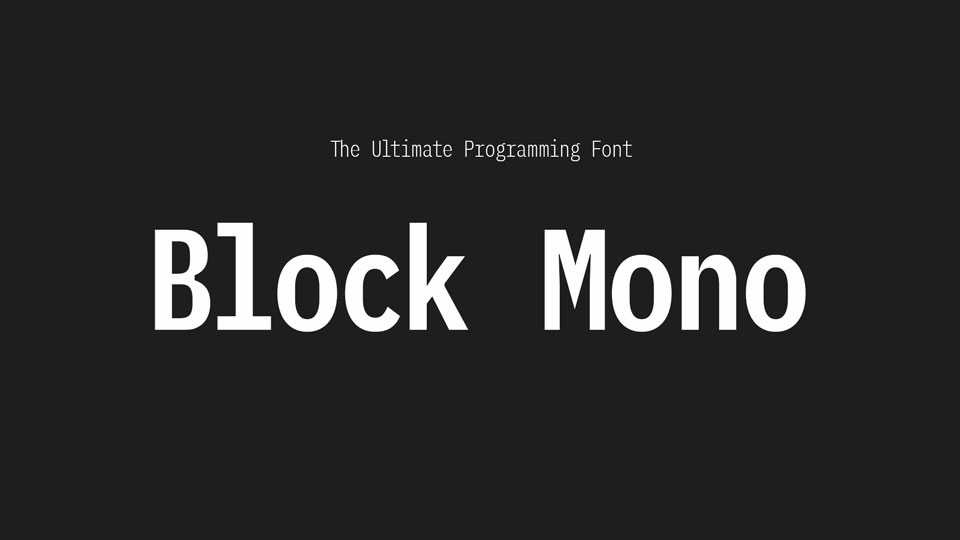
Download Block Mono font, a meticulously crafted programming typeface designed to make every keystroke a masterpiece. Tall, elegant, and exceptionally readable, it’s the perfect companion for developers.
Designer: Tyrail Leverett